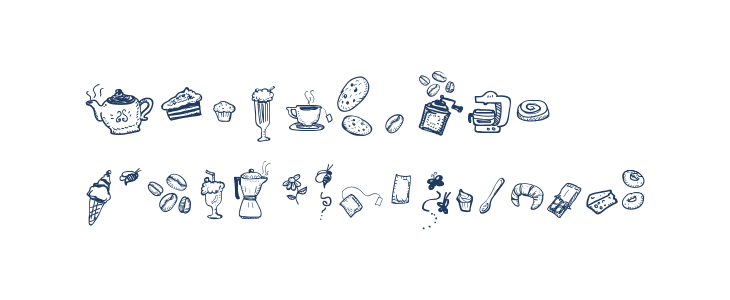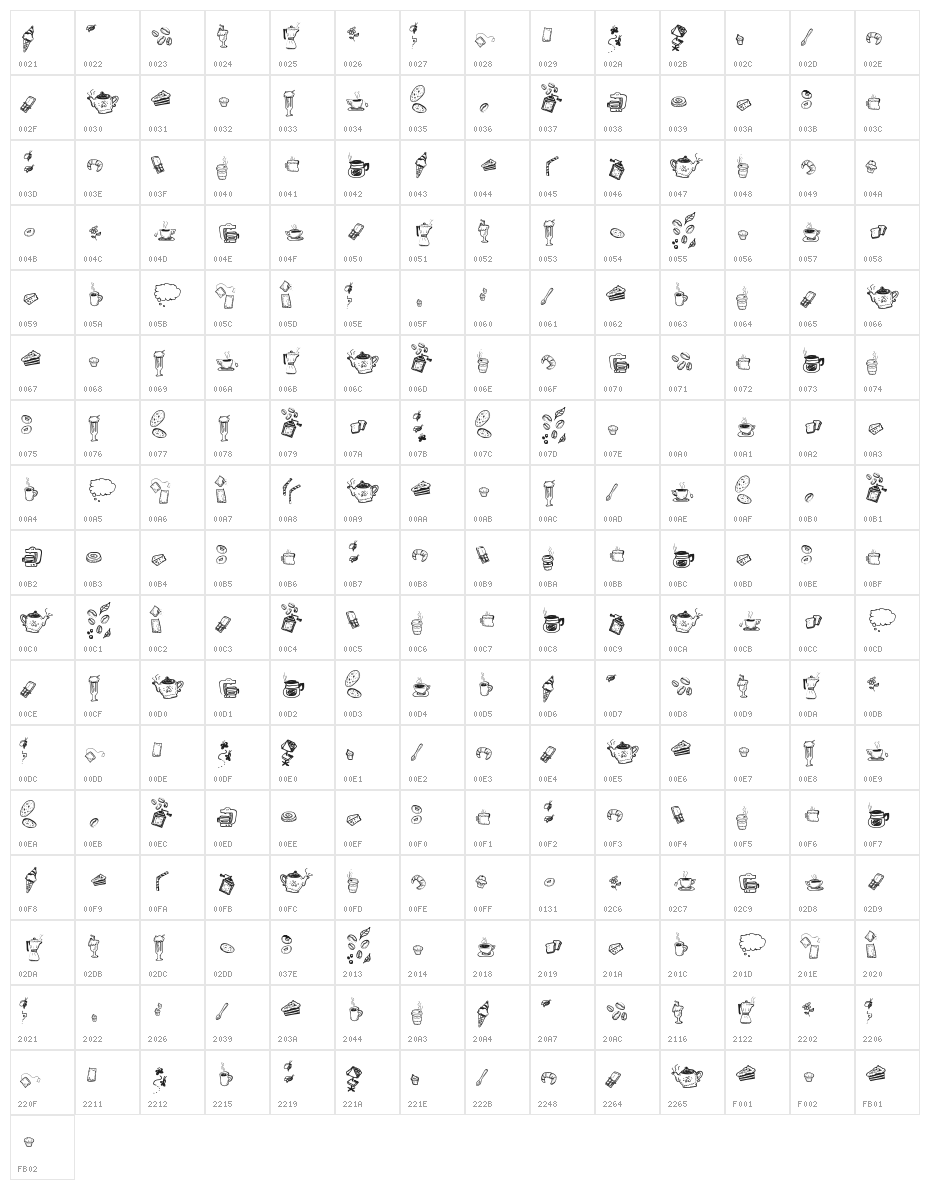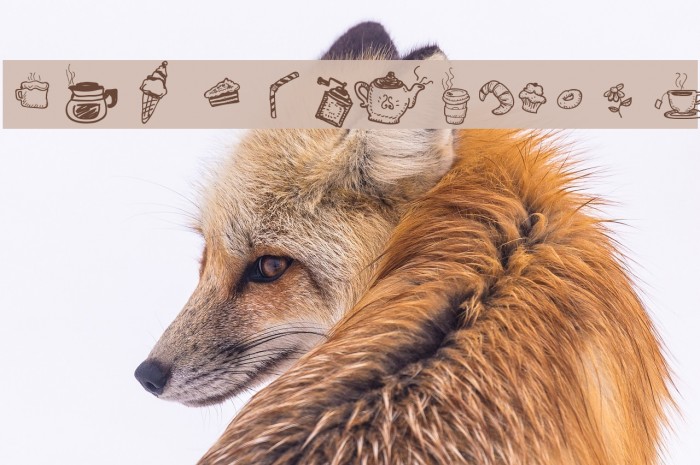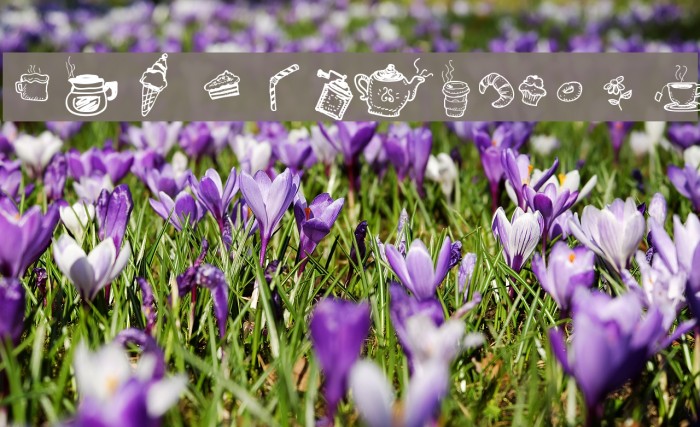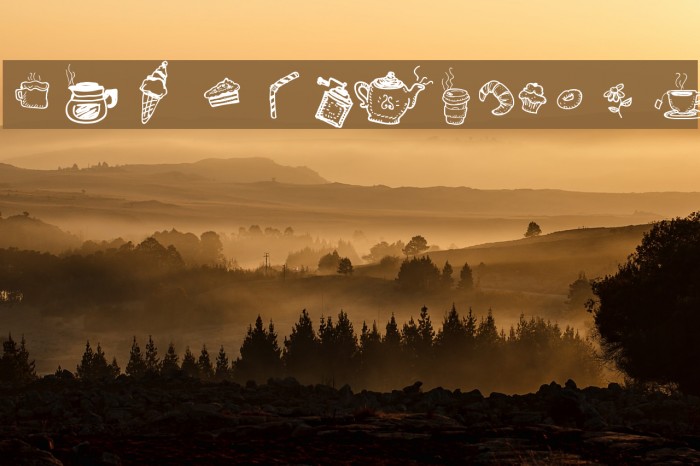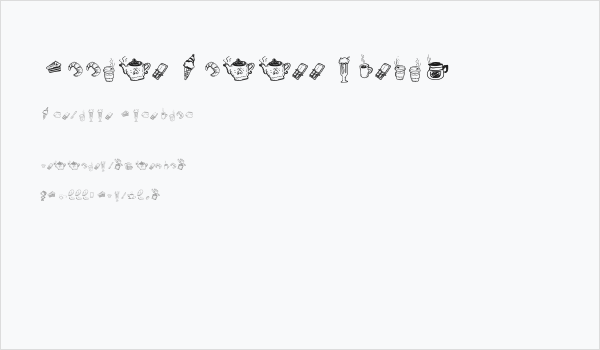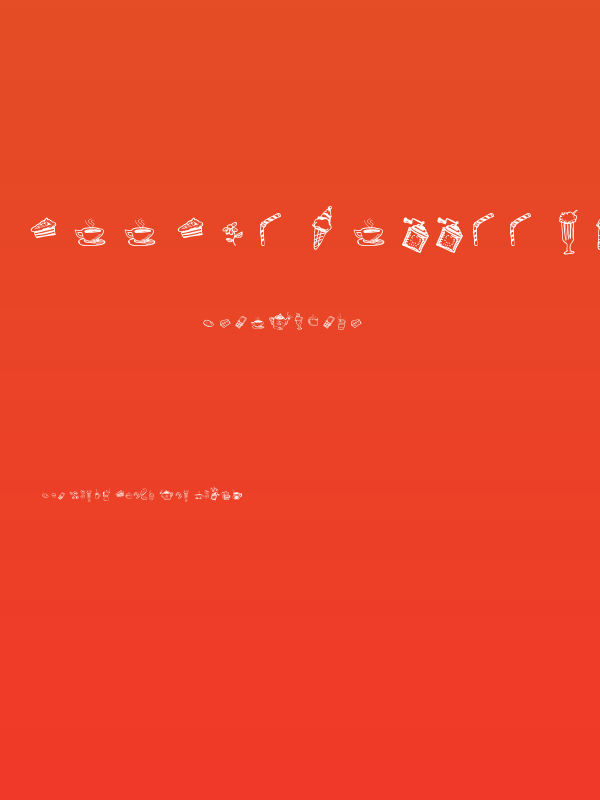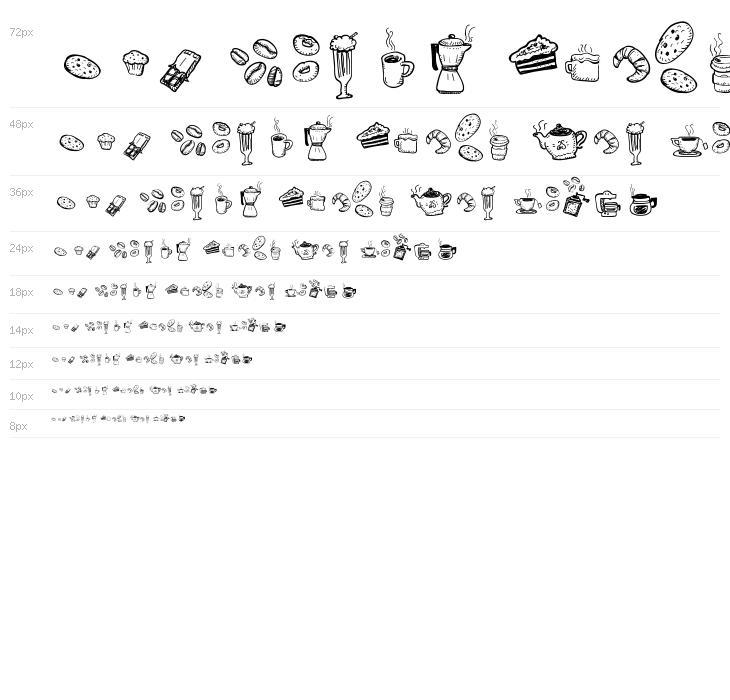
Doodle Coffee Scents Font
Doodle Coffee Scents Description
This set of doodles features a charming collection of coffee and dessert-themed illustrations. Each element is hand-drawn with a playful and whimsical style, capturing the essence of a cozy coffee shop atmosphere. The doodles include various coffee cups, teapots, pastries, and coffee beans, each with unique details that add character and warmth. The line work is bold and expressive, giving the illustrations a lively and inviting feel. These doodles are perfect for adding a touch of personality to any project, whether it's a menu design, a social media post, or a personal blog about coffee culture.
| Overall Style | Whimsical, Playful |
| Use Case | Decorative elements, Branding, Social media |
| Proposed Projects | Ideal for coffee shop branding, menu designs, social media graphics, and lifestyle blogs. |